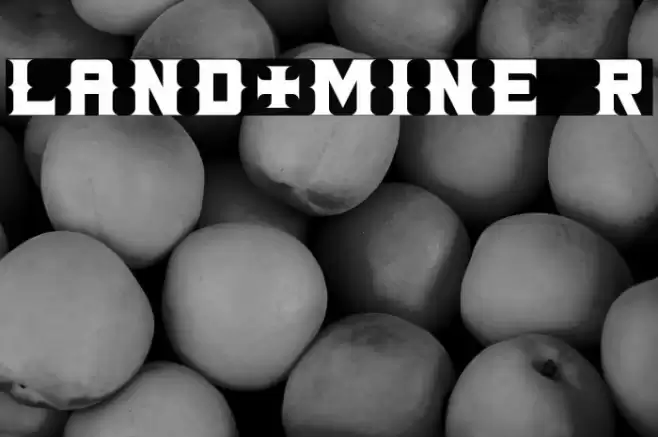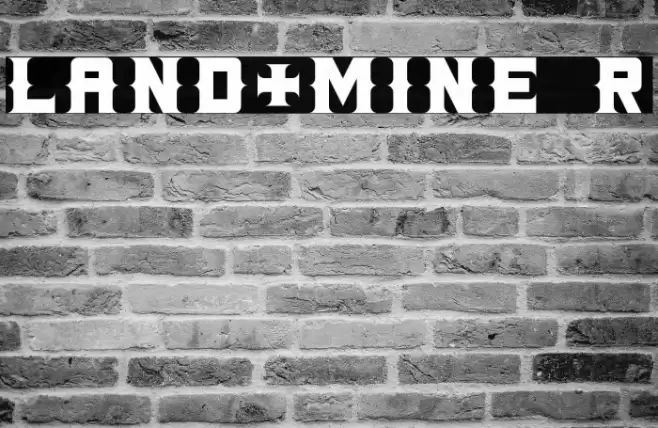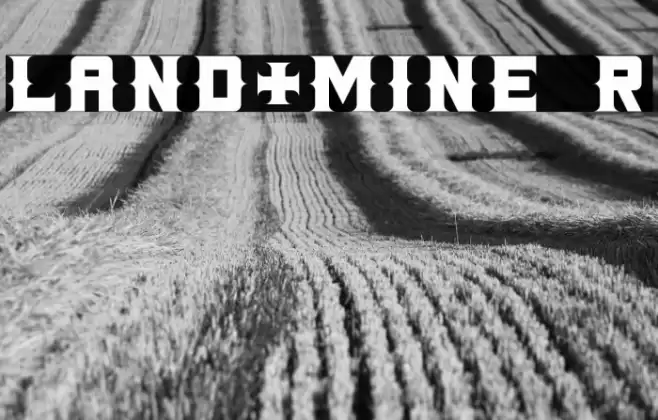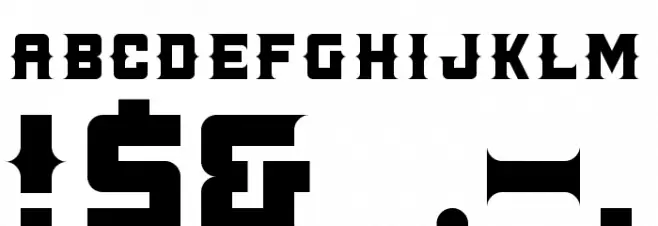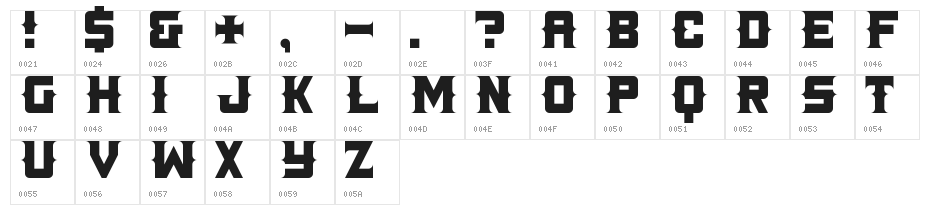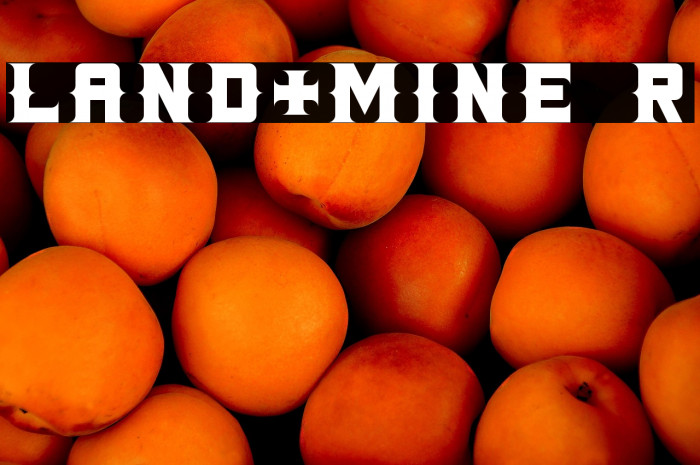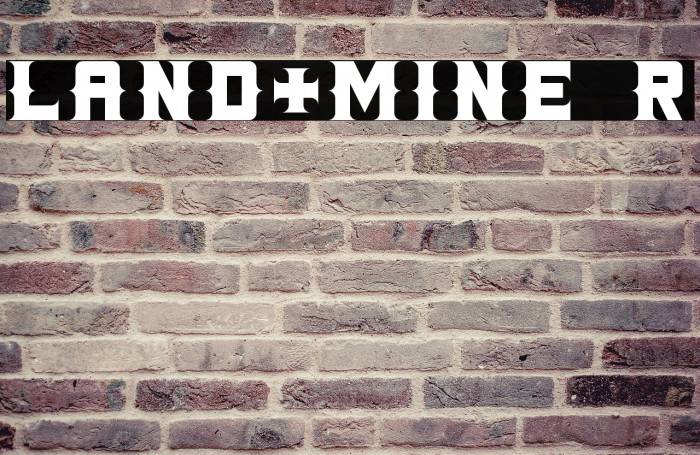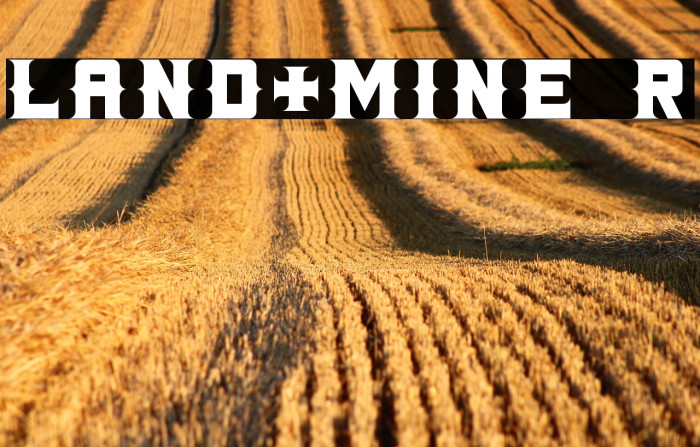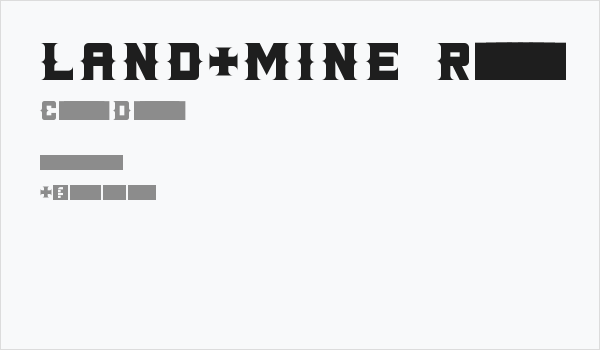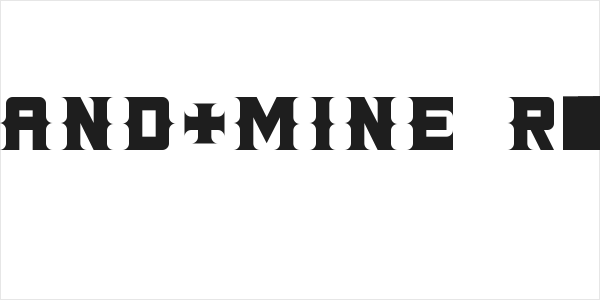
LAND+MINE Regular Font
LAND+MINE Regular Description
This font features a bold and striking design with a strong geometric influence. The characters are blocky and robust, with sharp angles and a consistent thickness throughout. The uppercase letters are particularly prominent, with a uniform height and width that gives them a commanding presence. The lowercase letters maintain the same boldness, ensuring readability while retaining the font's distinctive style. The numbers and special characters are equally bold, designed to stand out and complement the overall aesthetic. This font is ideal for projects that require a strong visual impact.
A bold, geometric font with a strong, commanding presence from Regular fonts.
- Proposed Projects: Ideal for posters, headlines, branding, and any project needing a bold statement.